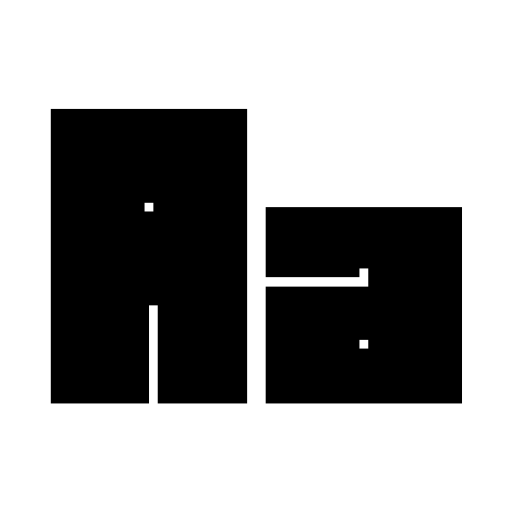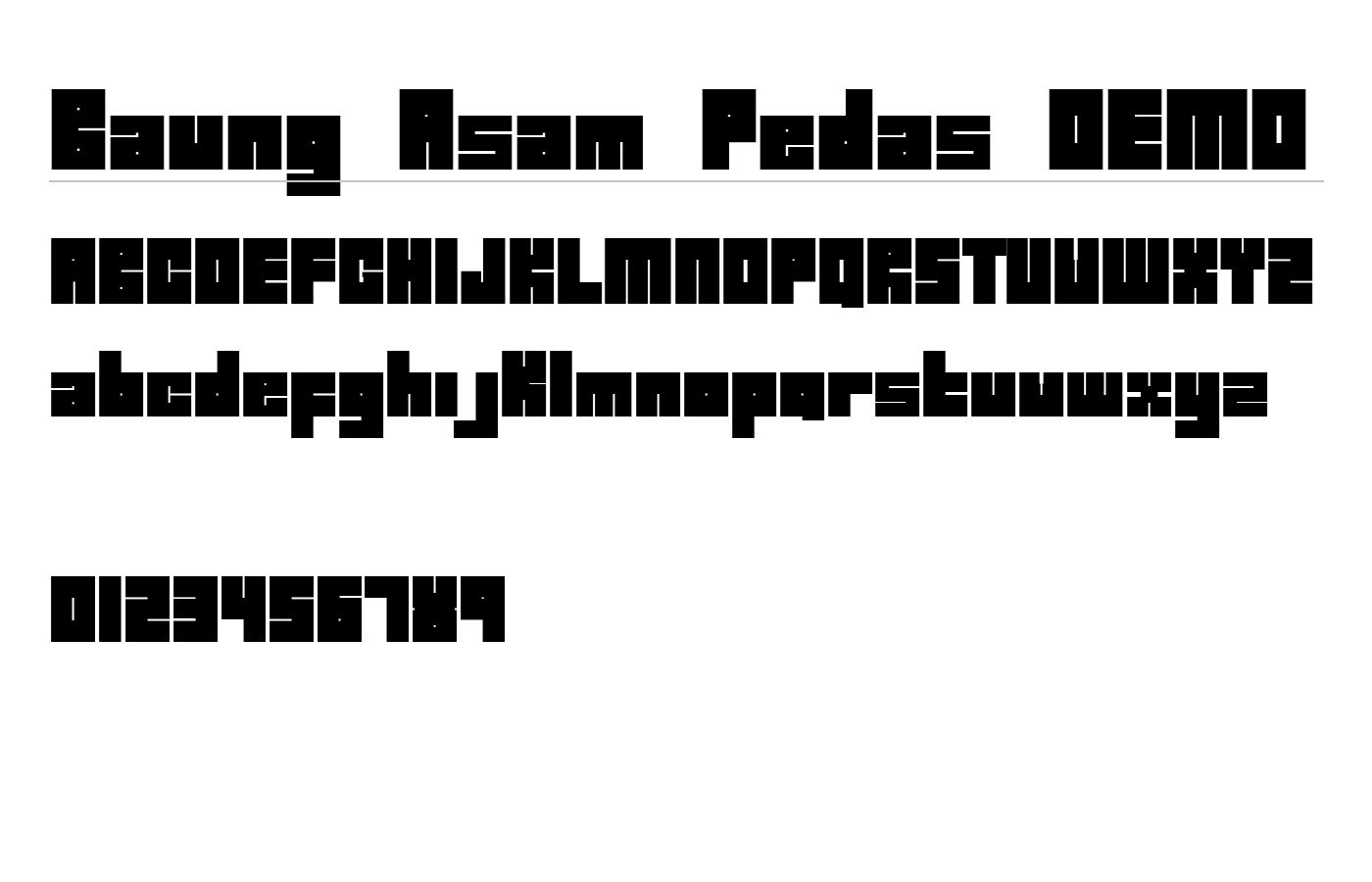
Baung Asam Pedas DEMO is a bold, blocky sans serif font with a strong geometric structure and a condensed width, giving it a powerful, industrial feel. Its high stroke contrast and sharp angles create a striking, modern look ideal for attention-grabbing headlines and display use. This font works well in branding, posters, and projects that need a commanding, edgy style with a contemporary vibe.
Baung Asam Pedas DEMO Font
About Baung Asam Pedas DEMO Font